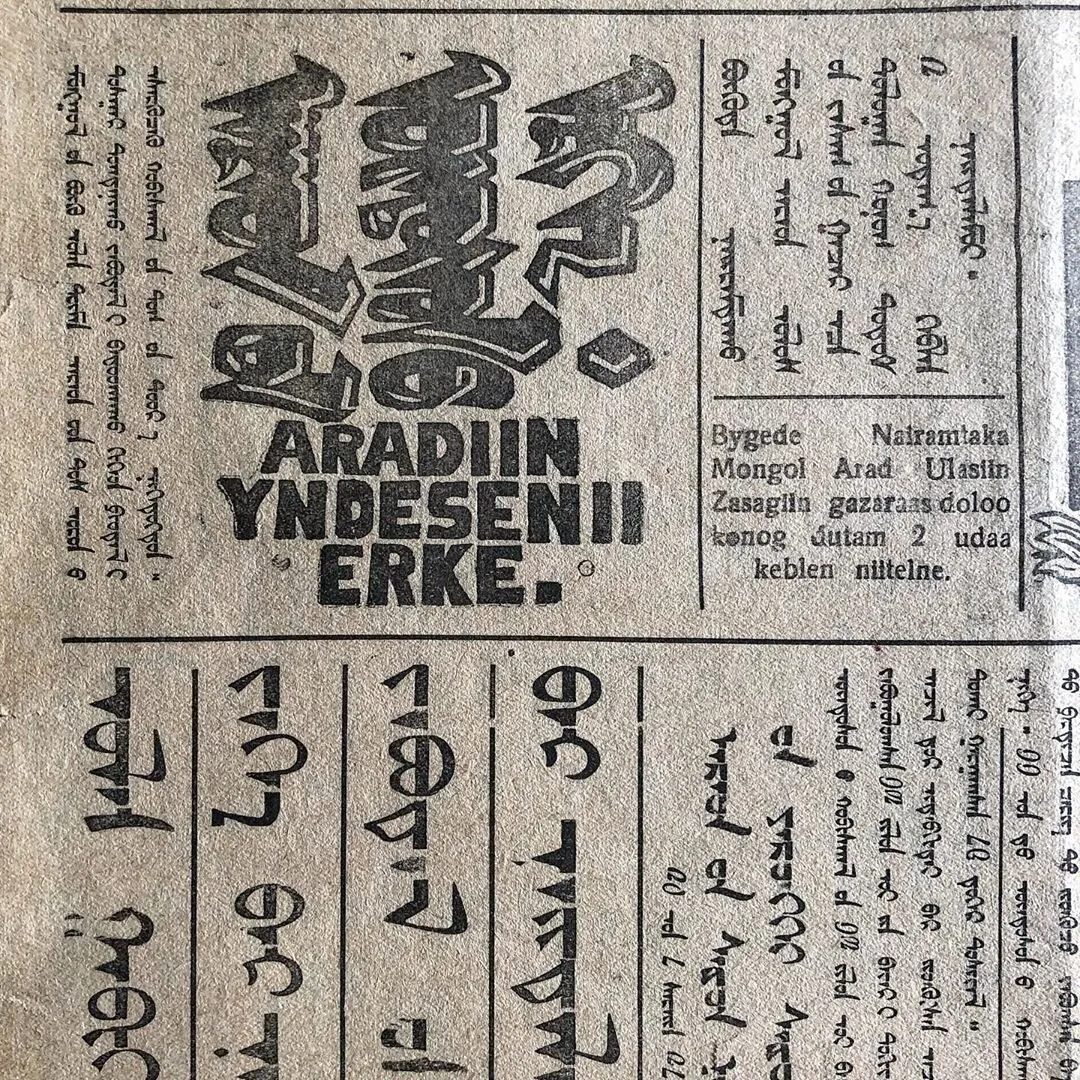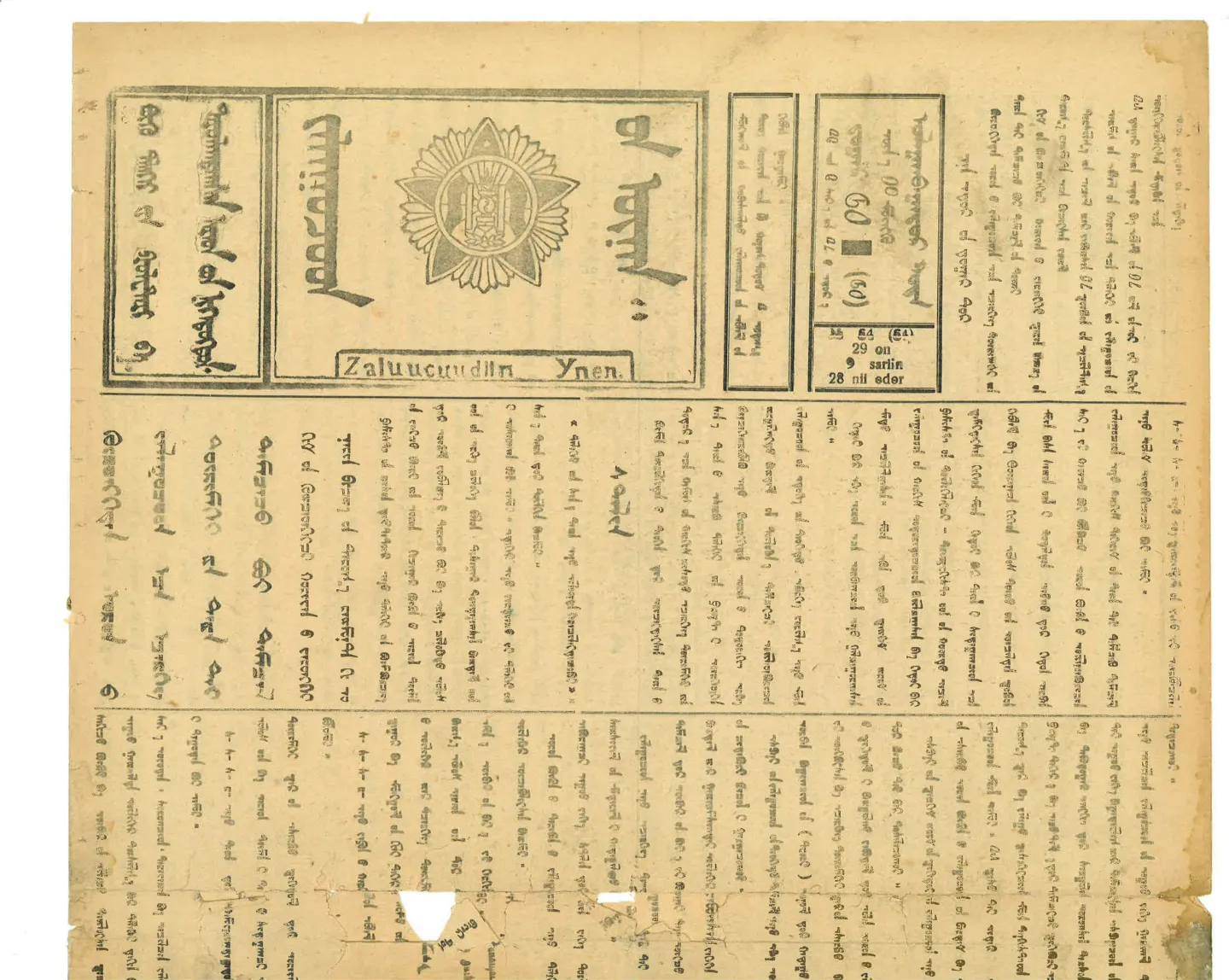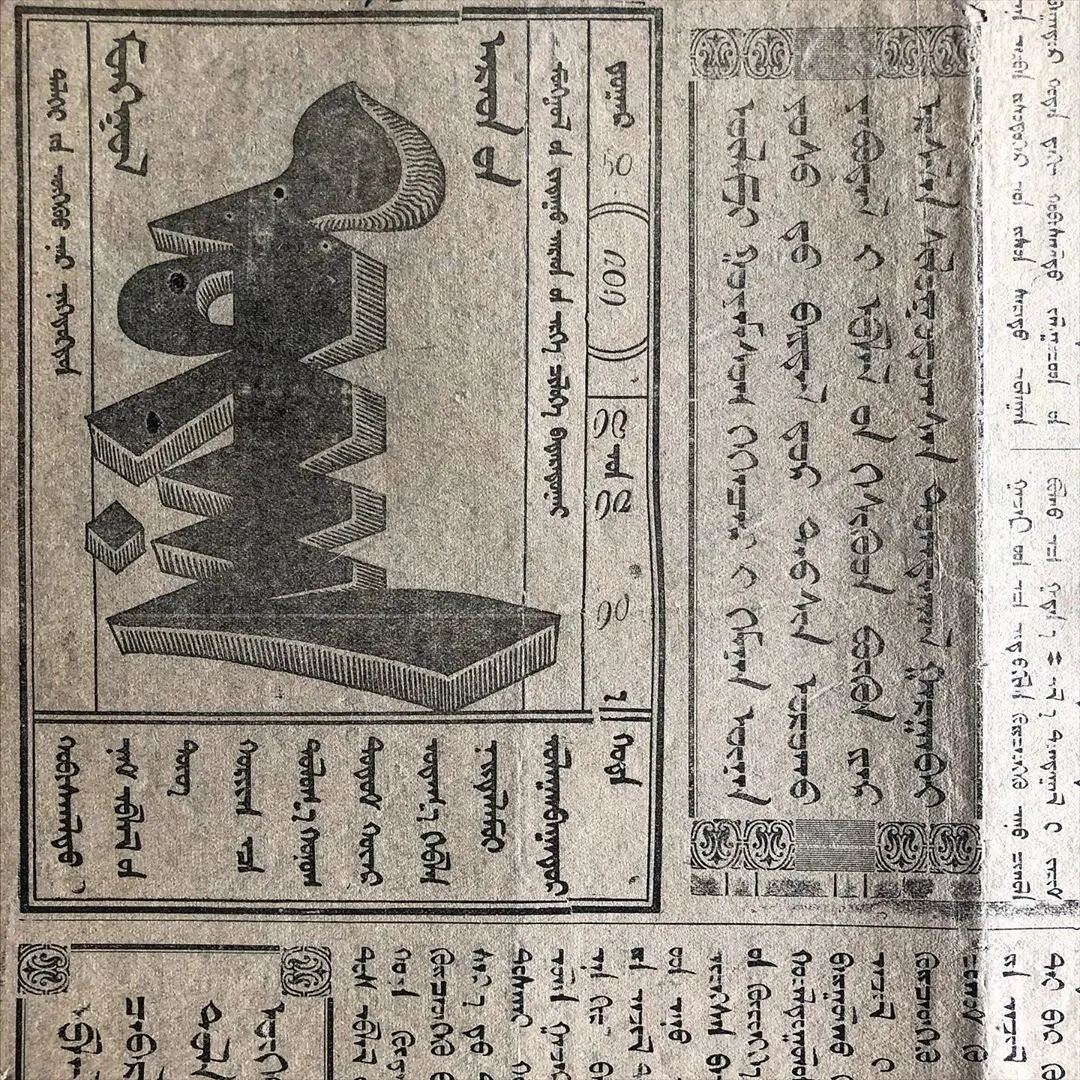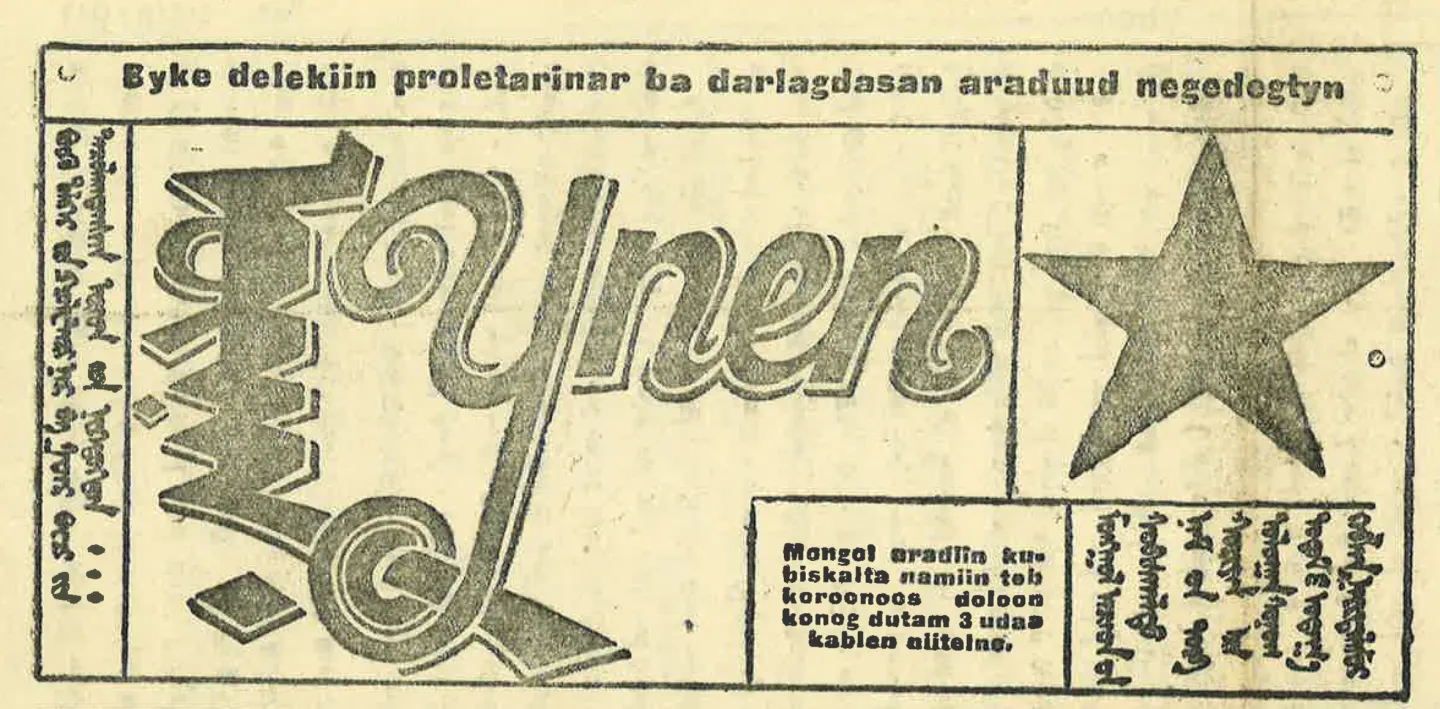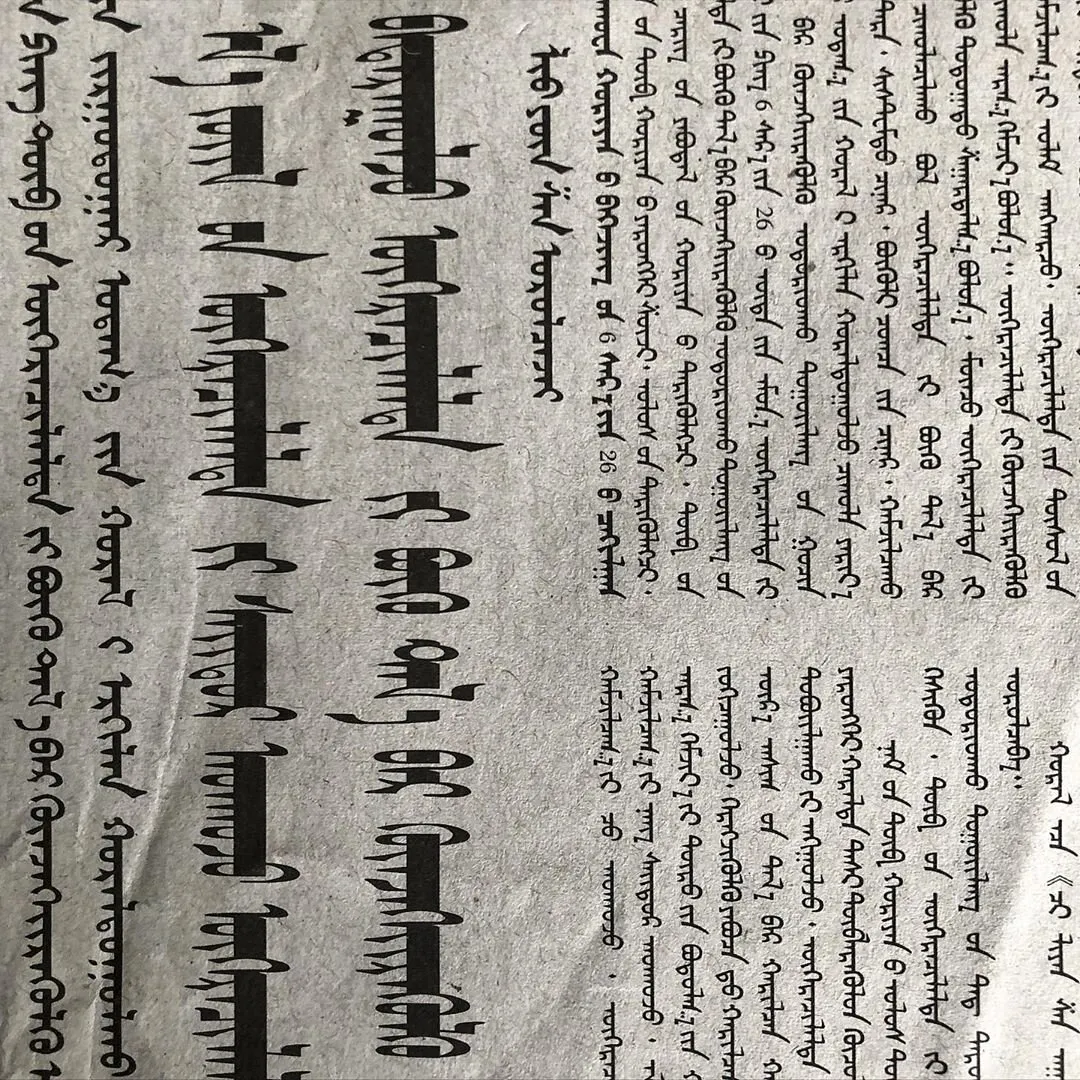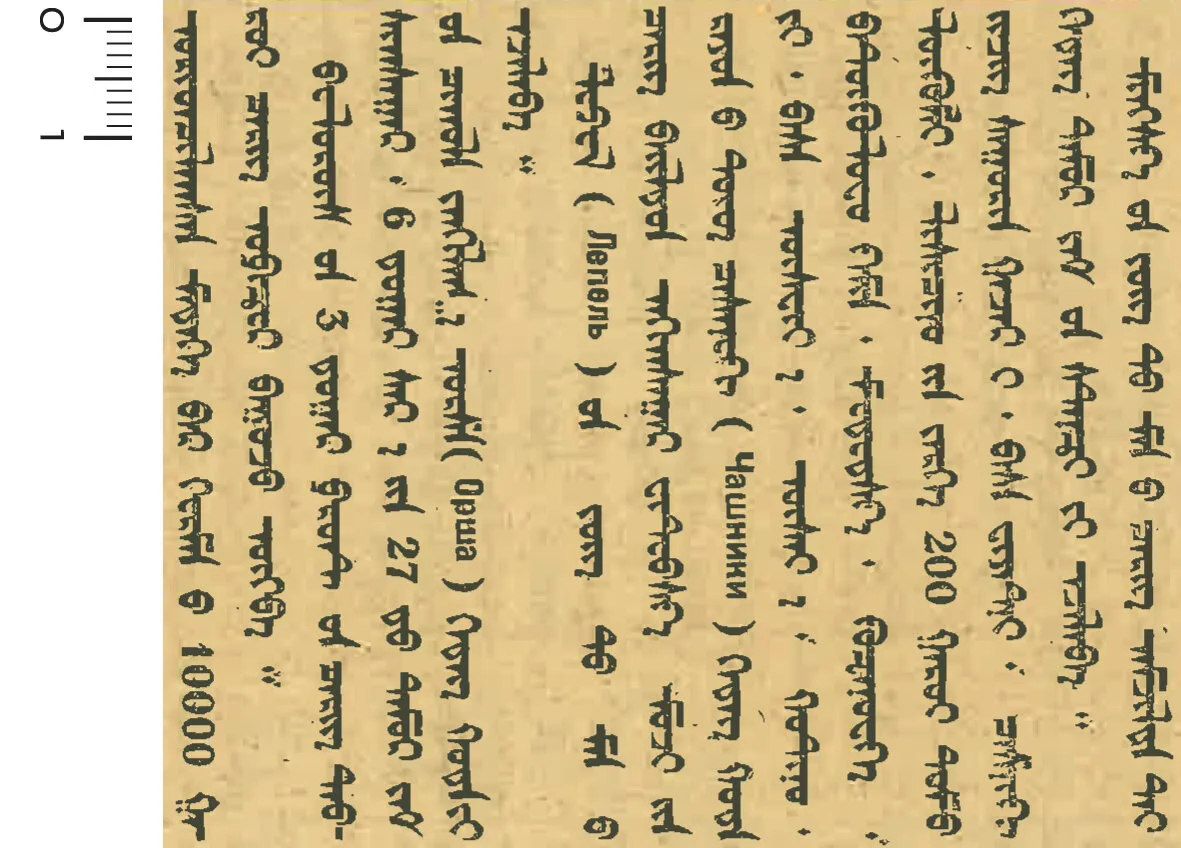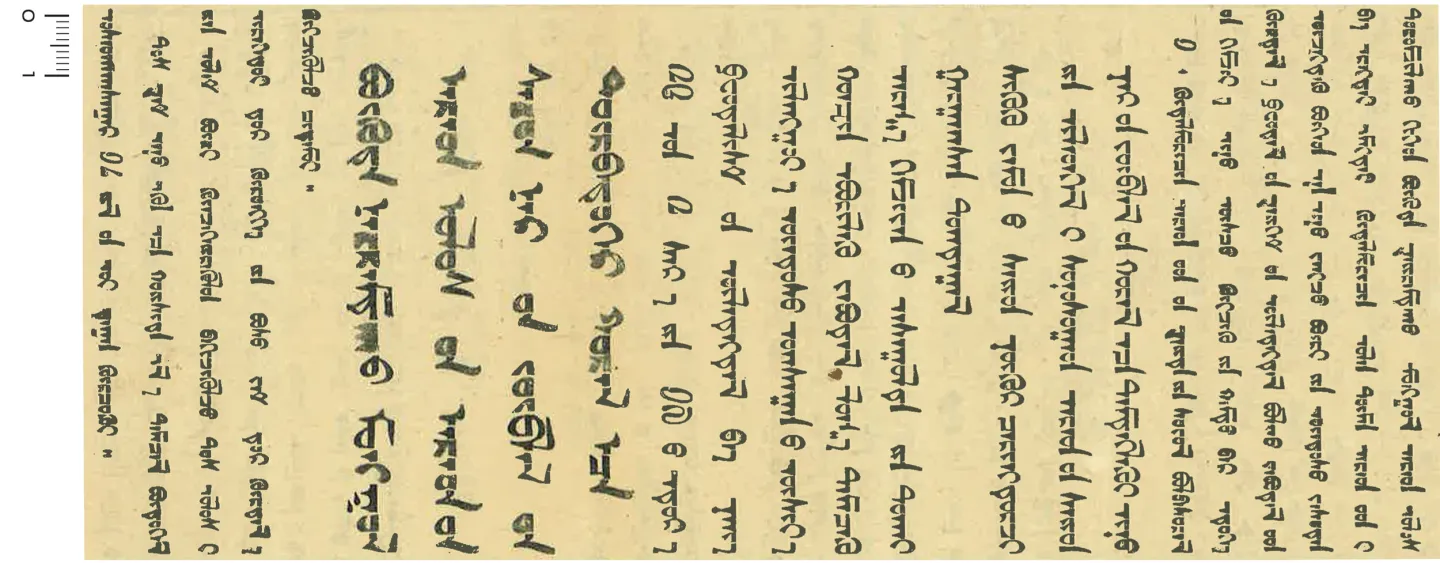
In this study, Dr De Baerdemaeker proposes approaches for designing contemporary Mongolian newspaper fonts, by comparing the design, development, and use of typefaces in Mongolian newspapers with the ones used in periodicals for Mongolic languages from other regions, and countries, that are printed in the Mongolian script. The study analyses the relation of the representation of the Mongolian script in contemporary digital newspaper design with periodicals that were manufactured with previous printing technologies and typesetting methods.
Additional areas of the research also highlight the background of the newspapers, as well as the historical aspects and design approaches of Mongolian printing and typography.
The research for this study draws on the creation of a unique database of Mongolian periodicals. This database of Mongolian newspapers from the personal collection of Dr De Baerdemaeker consists –to the date of the abstract submission– of 51 copies of six different letterpress printed newspapers (dating between 1896 and 1957), and 35 copies of two different digitally designed newspapers (dating between 1989 and 2020), and intends to be expanded with consulted material from other existing collections.
The design of each of the collected newspapers was thoroughly investigated, by analysing and interpreting the size, material & page layout architecture of the artifact; the masthead; the typography of the body text, headlines, captions & additional information; the use of images; and occasional curiosities.
This research aims to reflect on how to define a particular Mongolian graphic & visual language, and aspires to contribute to the field of Mongolian typography and typeface design.